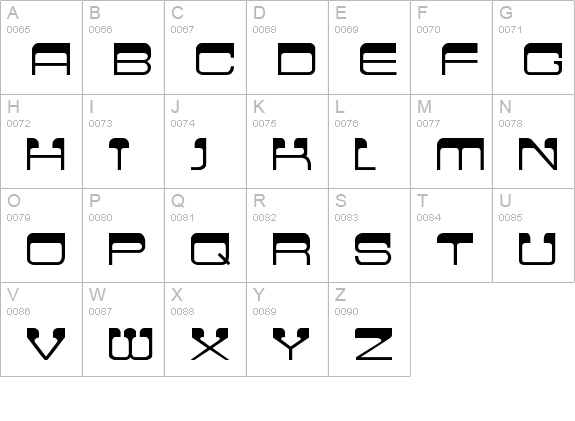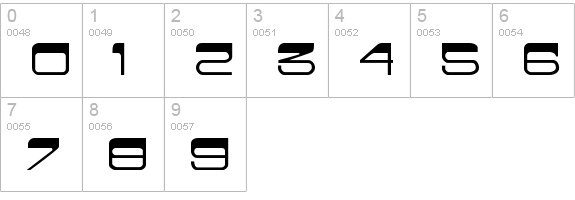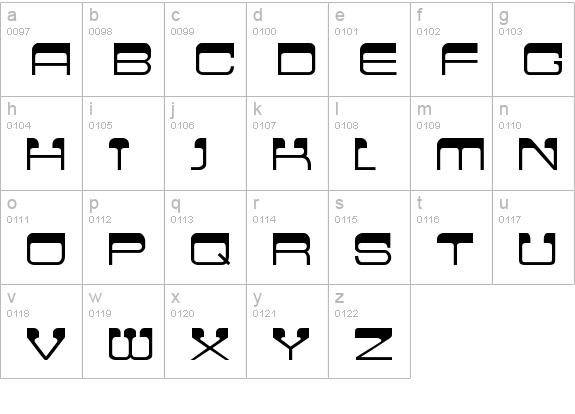
Cinema Regular is the standard, neutral variant in the Cinema typeface family \xE2\x80\x94 well suited to general body text, paragraphs, and standard typographic work.
Cinema Regular font is a classic and versatile typeface that brings a touch of elegance to any design project. With its clean lines and timeless appeal, this font is perfect for a wide range of applications, from movie posters to branding materials. The Cinema Regular font is easily readable yet stylish, making it a popular choice among designers and creatives. The best part is that Cinema Regular font is available for free download at FontsMarket.com. You can easily access this high-quality font and enhance your projects with its professional look and feel. Whether you're working on a film-related project or simply looking to add a touch of sophistication to your designs, Cinema Regular font is a fantastic choice that won't cost you a thing. Download it today and elevate your designs with this stunning typeface.